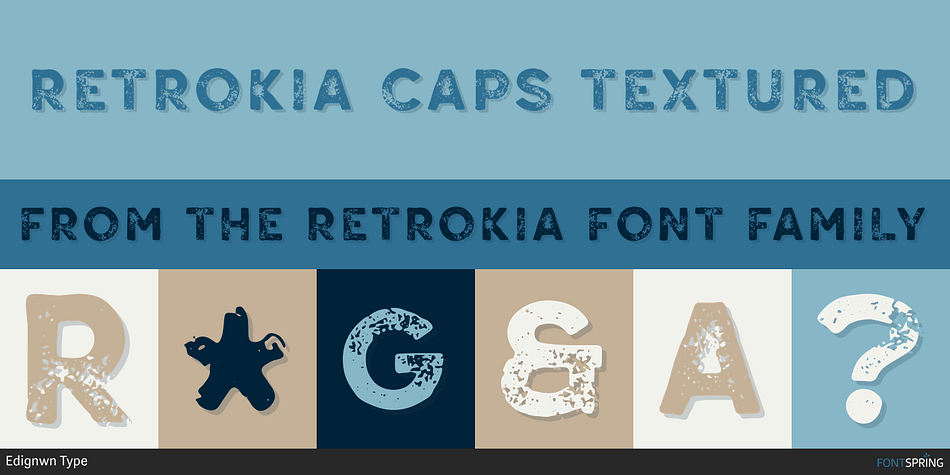
RETROKIA CAPS TEXTURED
Designed by Edi Gunawan, Retrokia is a sans serif and script font family. This typeface has eight styles and was published by Edignwn Type.
The font collection is called “Retrokia”, it is a display font for logotype. These collections contain script and sans serif font. Every font comes with 4 style typefaces (regular, rounded, rough and textured). This script font includes some alternates and ligatures. The Retrokia matches apply in some designs such as the logo, poster, label, badge, packaging, t-shirt, branding, quotes and more custom design.
Retrokia features :
- 4 style typefaces (regular, rounded, rough and textured)
- Uppercase, lowercase, numeral, symbol, punctuation, alternate and ligature in script font
- All-caps, numeral, symbol and punctuation in sans serif font